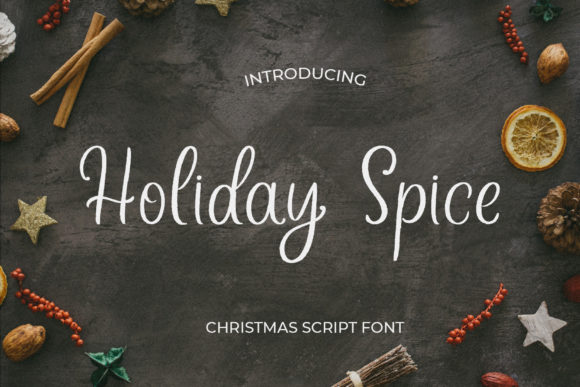
Journey into the world of warmth and charm with Holiday Spice Font, a captivating script born from the imagination of kamilla.writes.letters. Hand-drawn with a touch of whimsy, this Christmas script dances across your screen, bringing joy and cheer to every letter.
Adorn your New Year cards with a touch of festive flair, let your DIY projects bloom with holiday spirit, and transform postcards and gift tags into cherished keepsakes. Picture your designs adorned with Holiday Spice, spreading warmth like a crackling fire on a cold winter's night.
Envision your creative expressions taking flight as you design shirts that exude festive spirit, mugs that radiate holiday cheer, and signs that beckon passersby with their jolly charm. With Holiday Spice Font, your imagination knows no bounds.
Dive into a world of endless creative possibilities, where Holiday Spice Font becomes your muse. Its charming curves and playful strokes breathe life into your designs, capturing the magic of the season. Let your creativity flourish and your artistic vision shine as you embrace the holiday spirit with Holiday Spice Font.